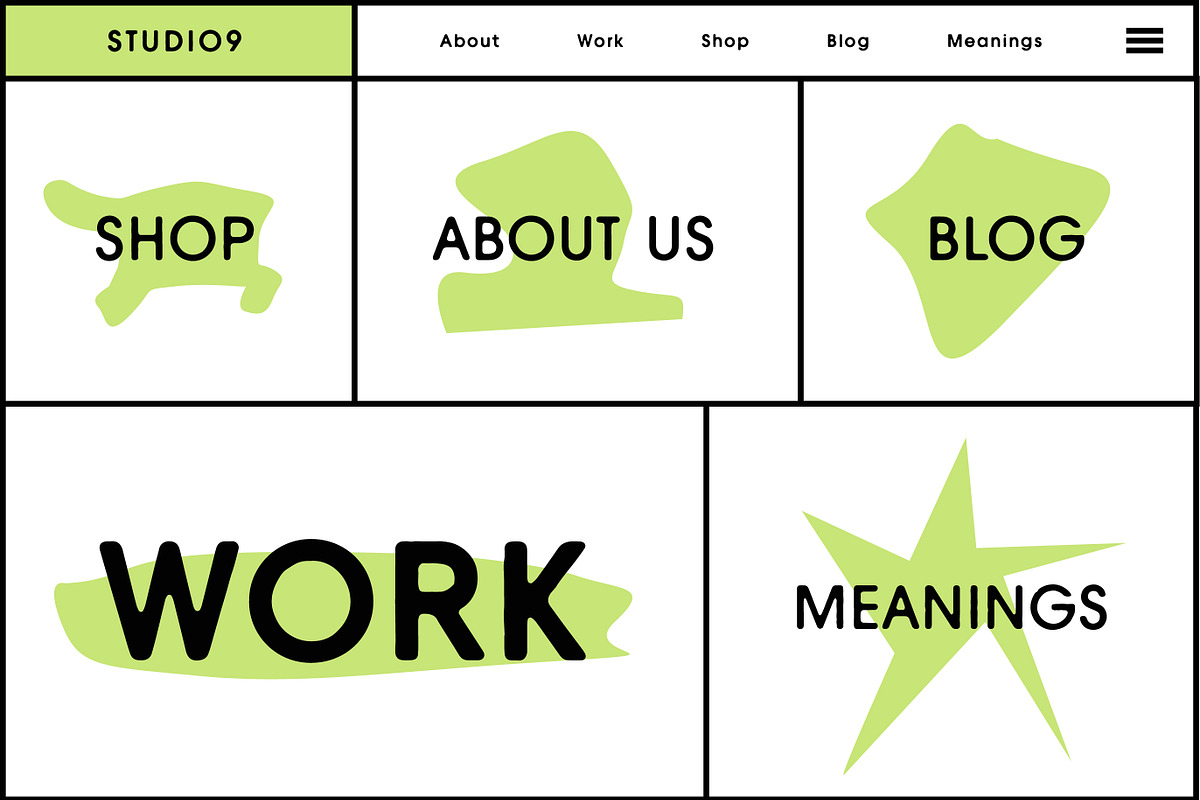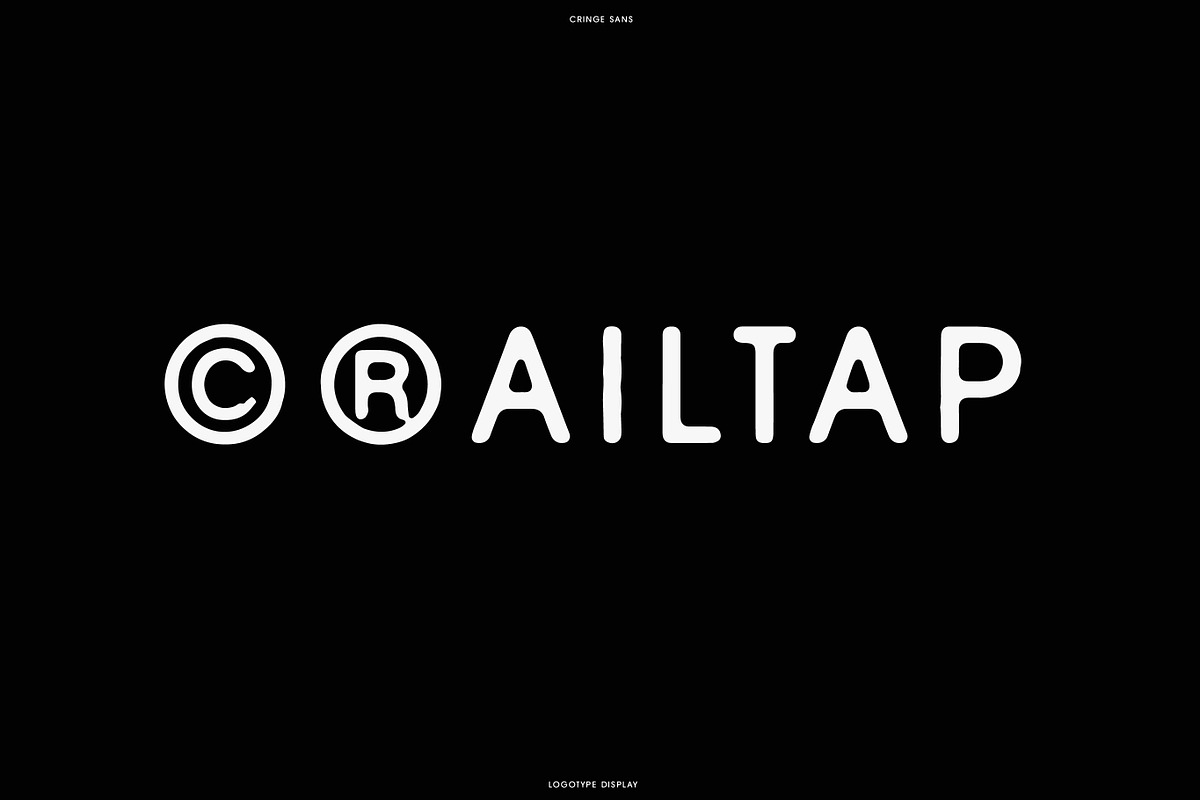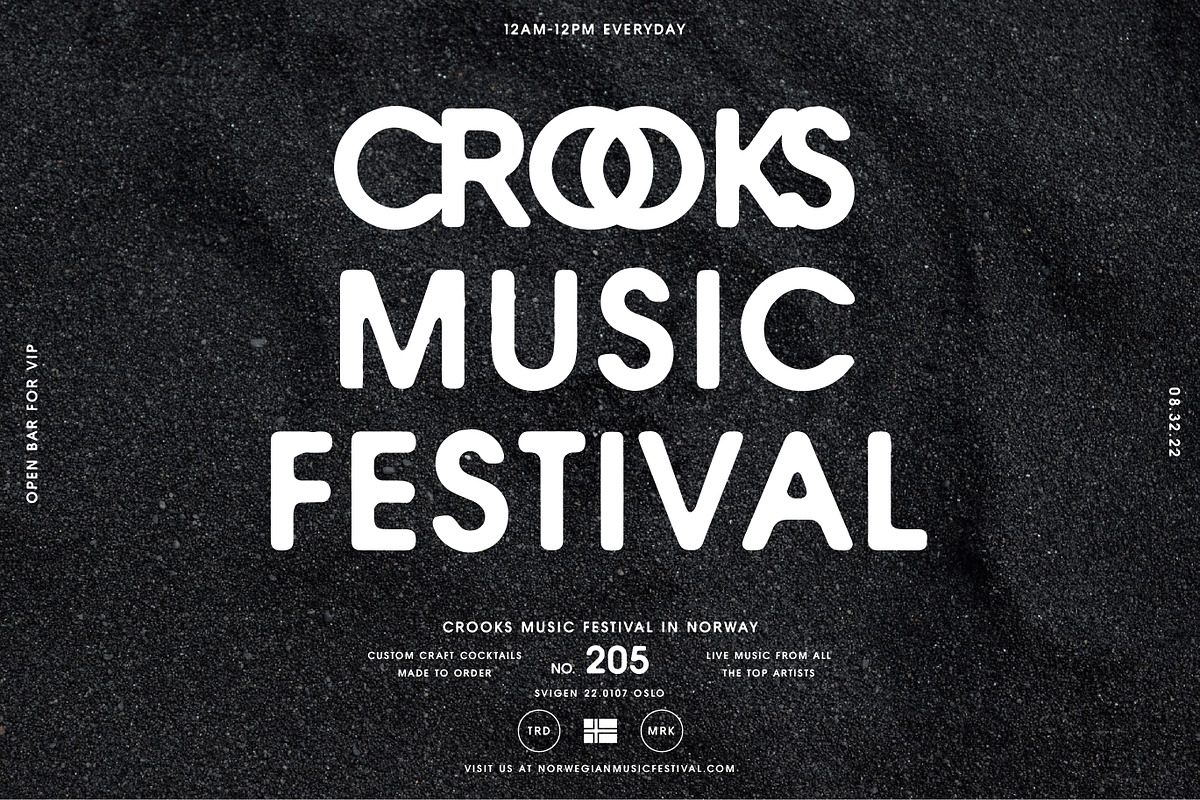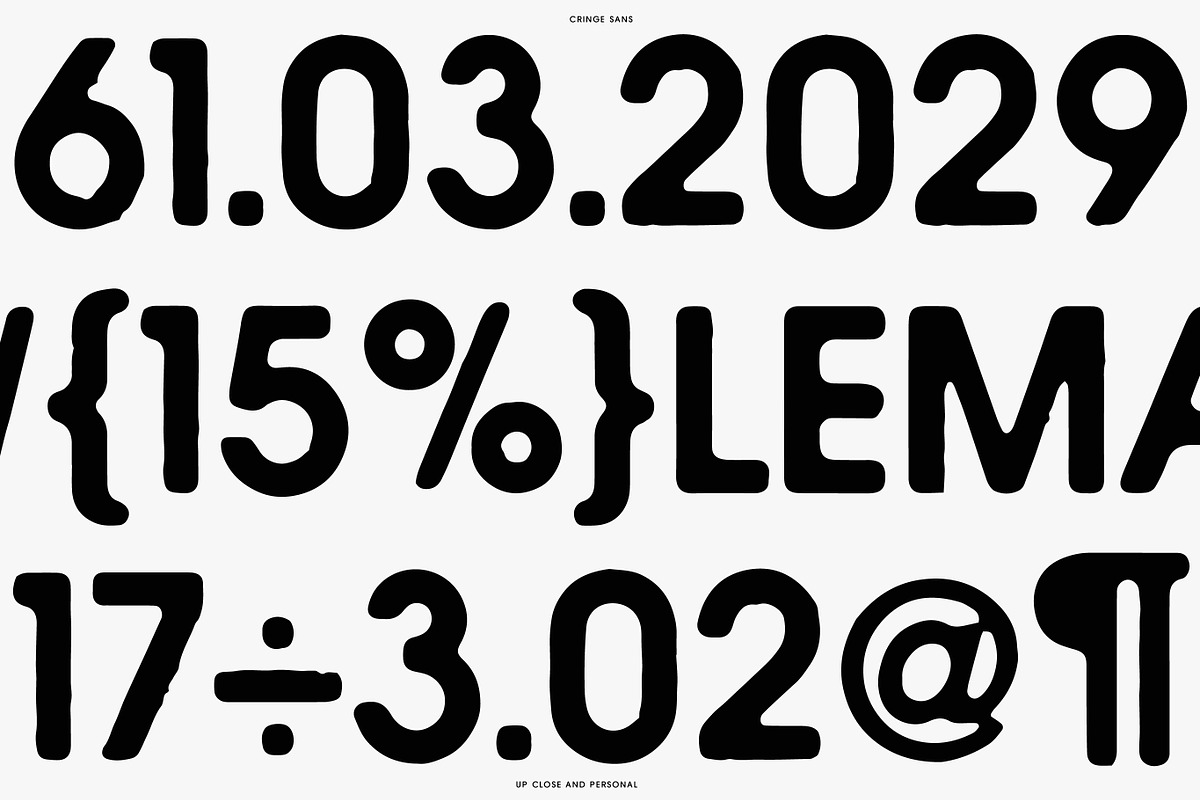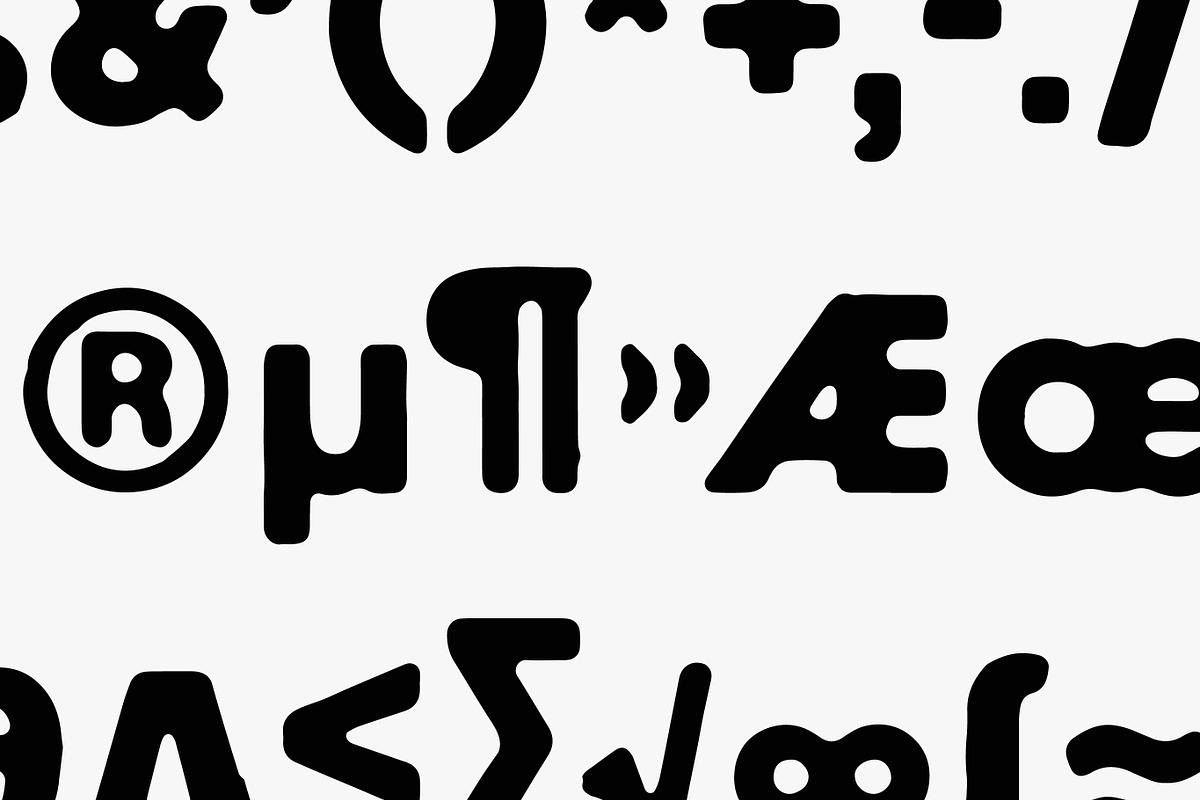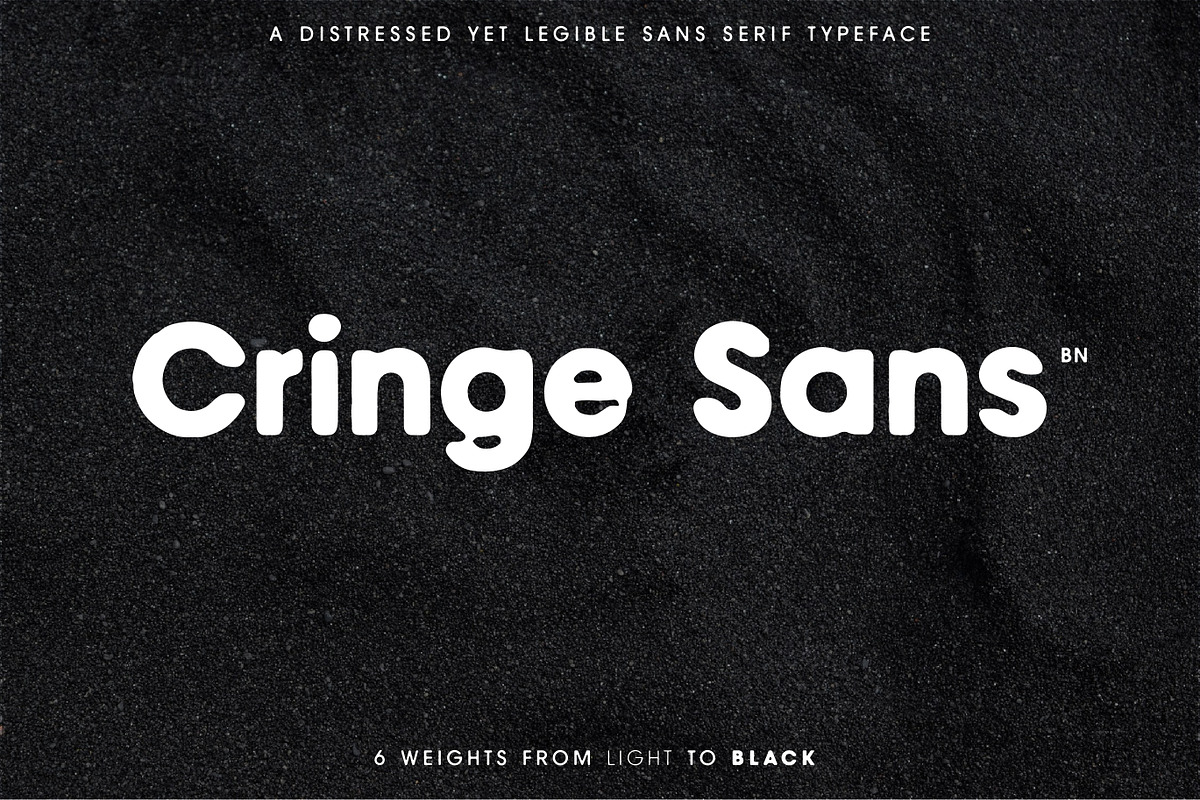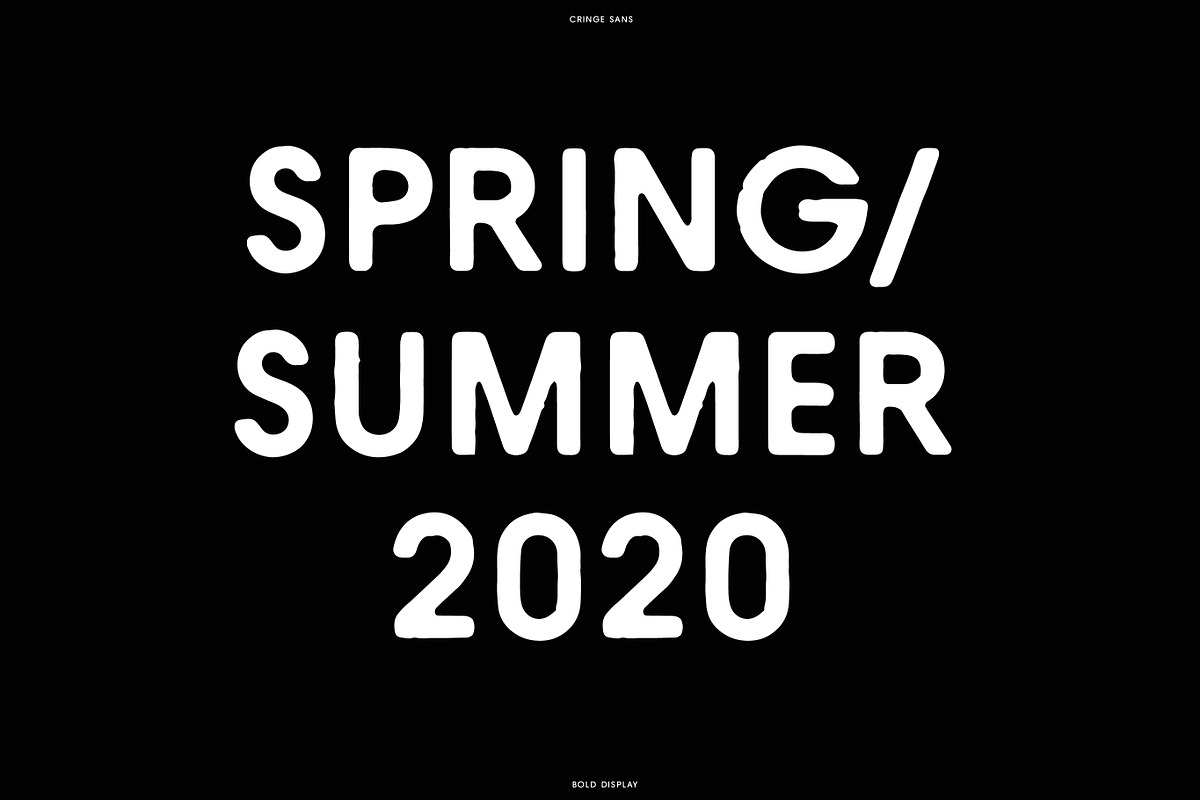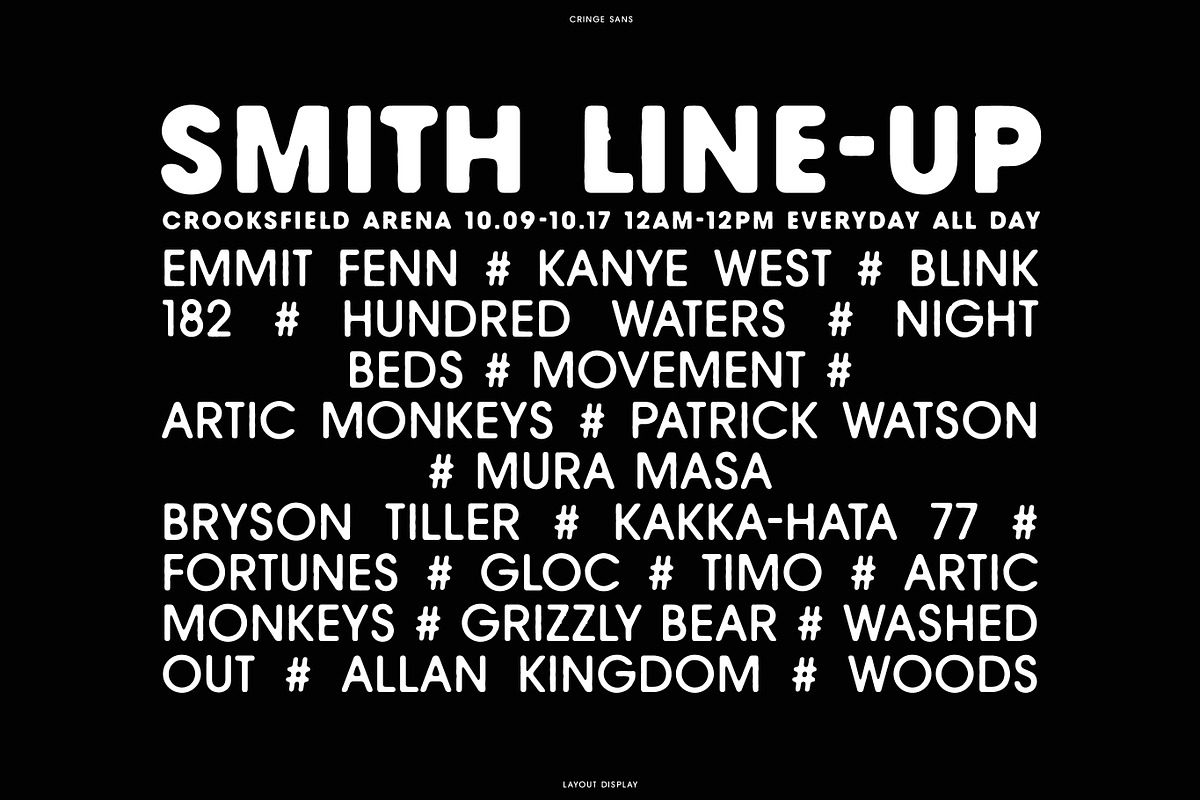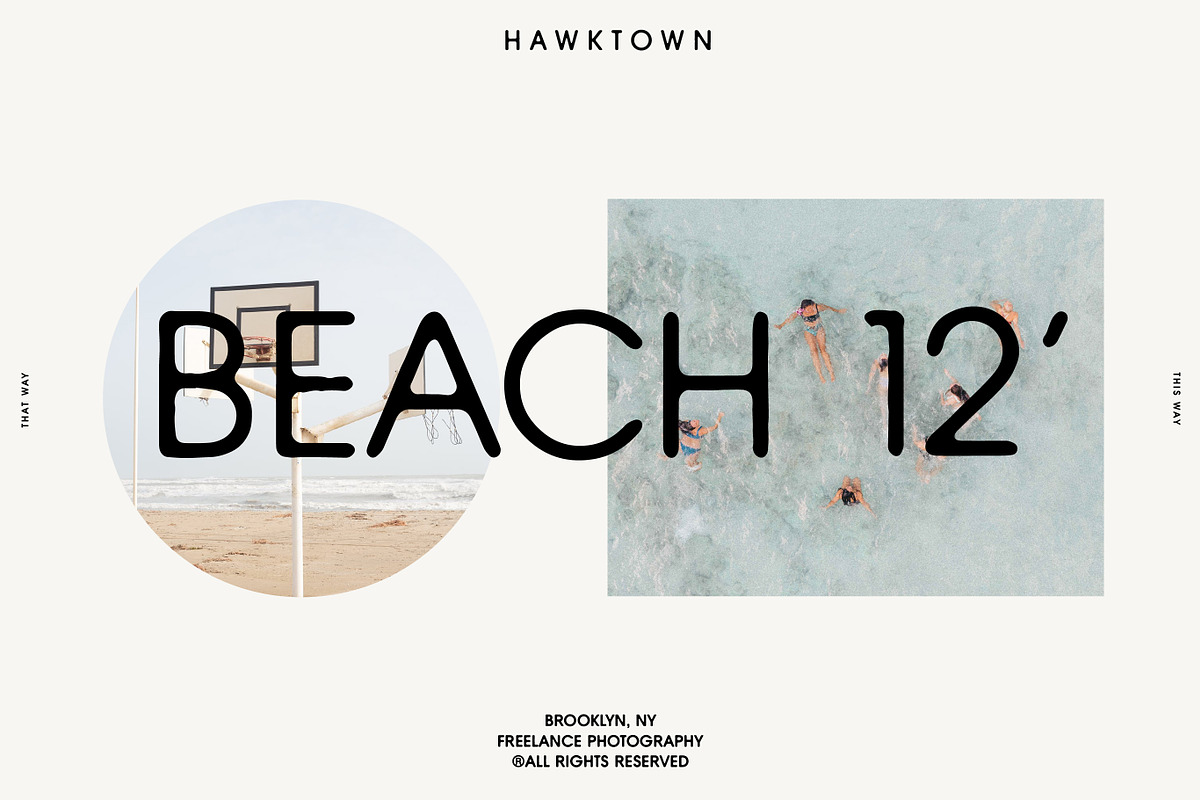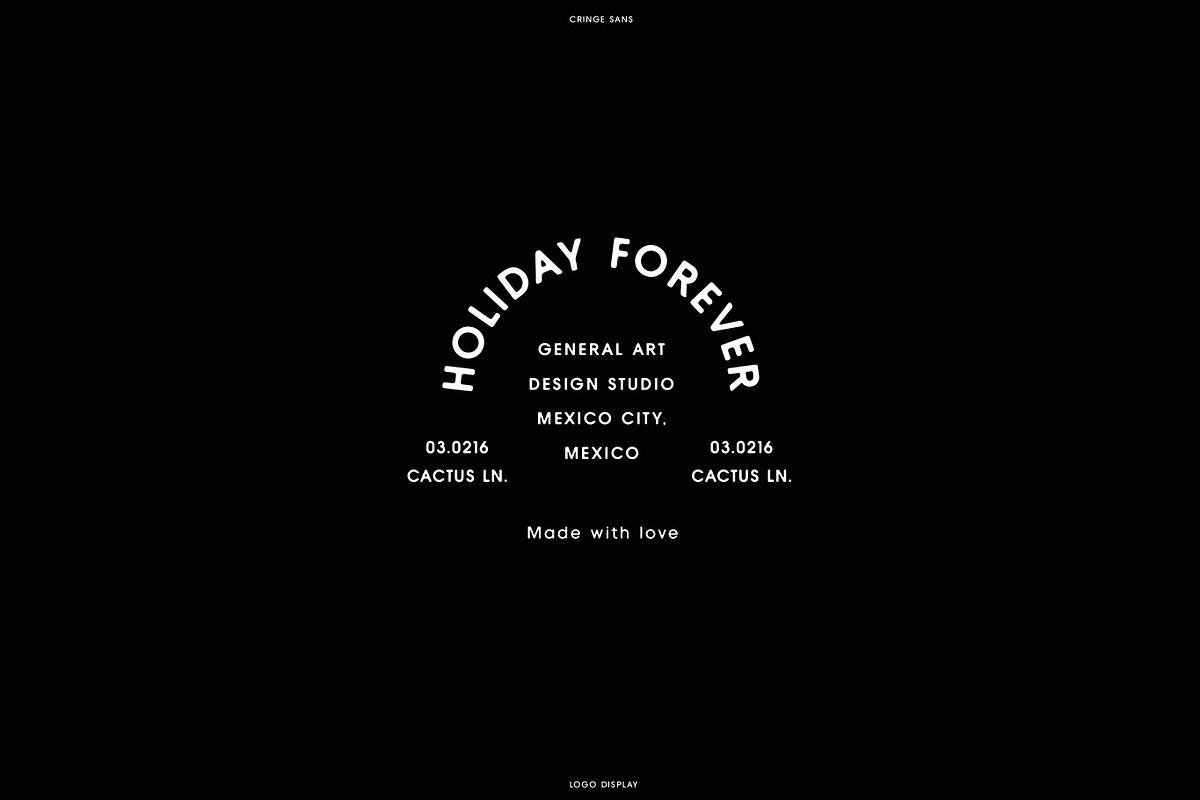
Introducing Cringe Sans
A distressed typeface design for legibility and to give your brand/design a unique look and feel! Each weight (and character) has been meticulously crafted giving each character unique attributes between variables.
- 5 Weights (Thin to Black)
- Upper & Lowercase
- All Necessary Punctuation & Numerals
- Accent Marks
- 15 Hours of Kerning and Spacing